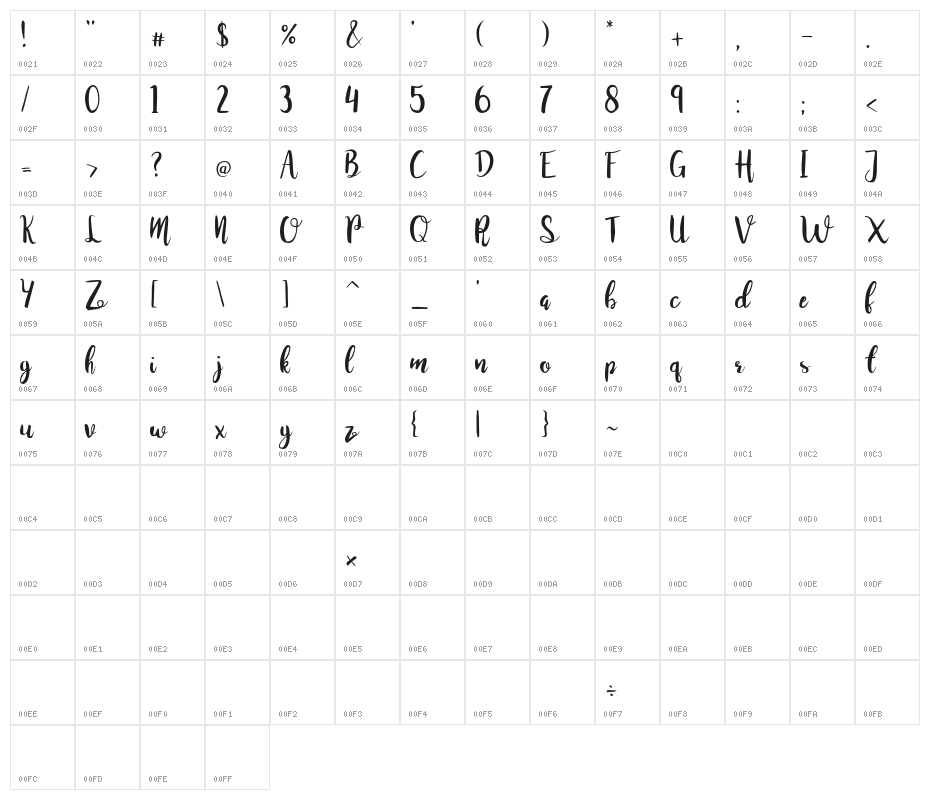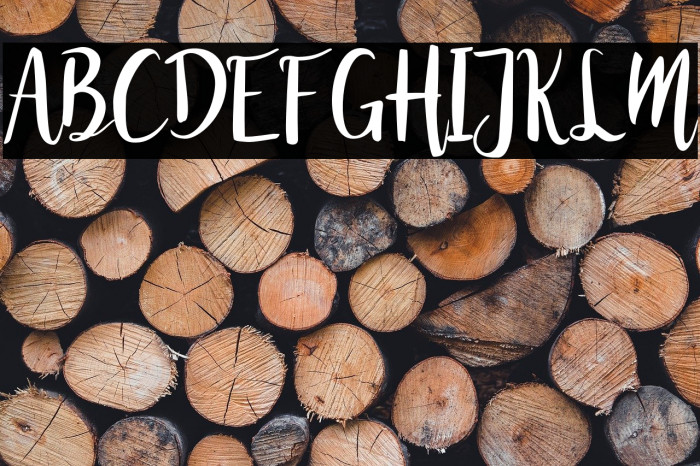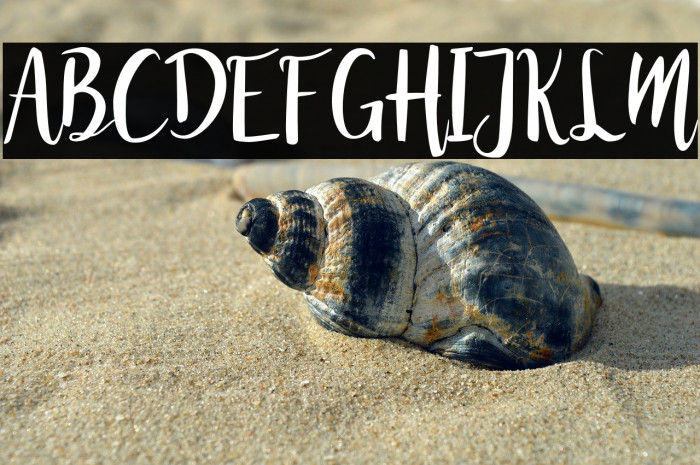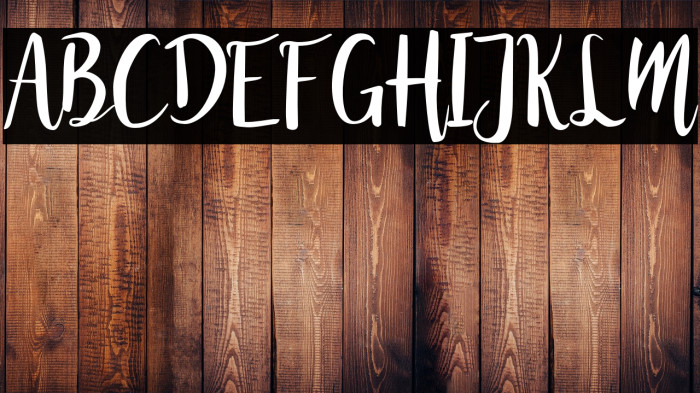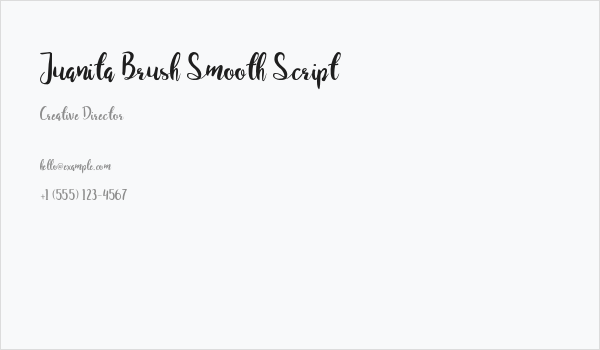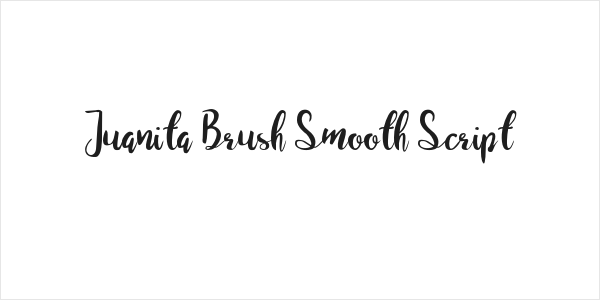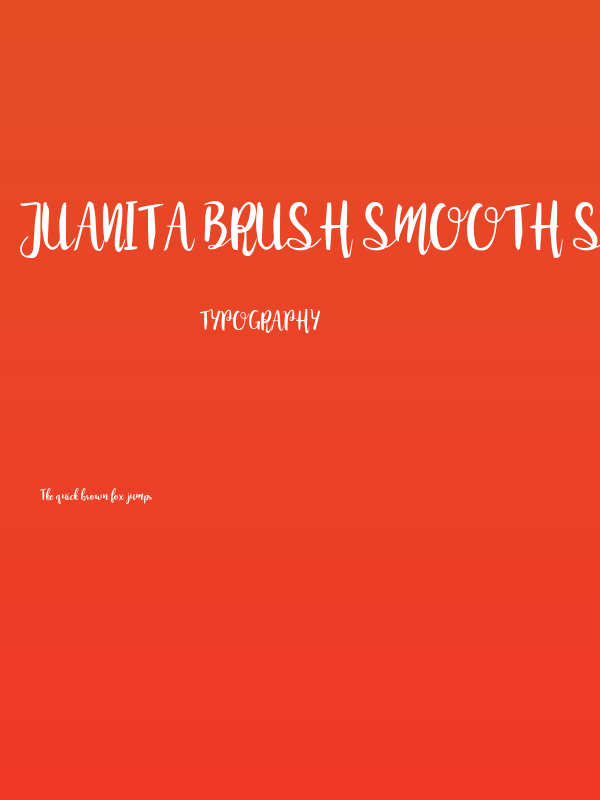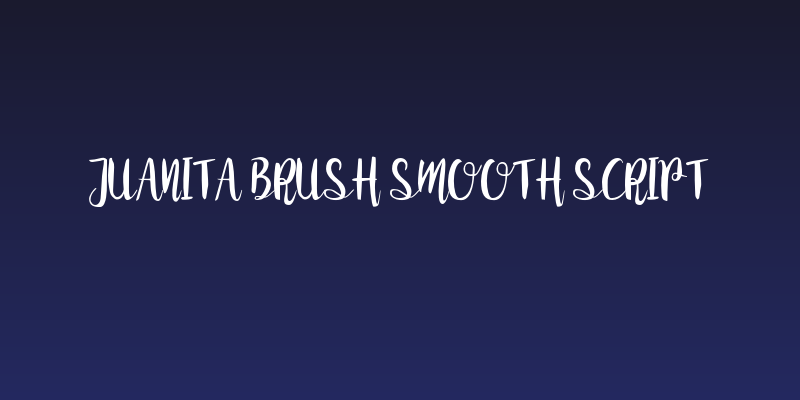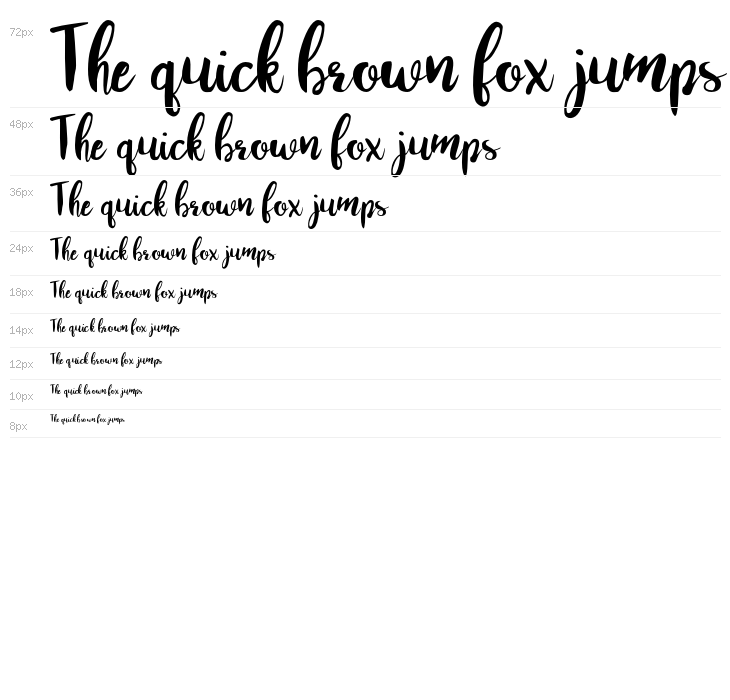
Juanita Brush Smooth Script Font
Juanita Brush Smooth Script Description
This font features a smooth, flowing script style that mimics the fluidity of brush strokes. The uppercase letters are bold and dynamic, with varying line thickness that adds a sense of movement and elegance. The lowercase letters maintain a consistent style, offering a harmonious blend of curves and loops. Numbers and special characters are designed with the same attention to detail, ensuring a cohesive look throughout. This font exudes a sense of creativity and artistic flair, making it ideal for projects that require a personal and expressive touch.